Something is happening in type design right now, and it’s worth paying close attention. The first quarter of 2026 has already delivered an unusually strong crop of new releases — not in volume, but in the quality of thinking behind them. Several of the coolest new typefaces to land this year carry real conceptual depth. They don’t just fill gaps in a font library. They argue for a particular vision of what typography should do.
That distinction matters more than it used to. As AI-generated visual content floods creative pipelines, the typefaces that brands and designers reach for increasingly carry cultural weight. Generic fonts signal nothing. Specific, considered type choices signal everything. The six families covered here understand that difference — and each one executes its position with uncommon precision.
This is my honest assessment of the coolest new typefaces released between January and March 2026. Each entry covers what makes it technically interesting, where it fits in the broader type landscape, and why it matters right now specifically.
Why Are the Coolest New Typefaces of 2026 So Different From Recent Releases?
The honest answer is that the cultural context for typography has shifted. The late 2010s and early 2020s favored one mode of typographic expression above all others: instrumental neutrality. Clean geometric sans-serifs. Variable fonts engineered for maximum versatility and minimum personality. Type that worked everywhere and committed to nothing.
That mode hasn’t disappeared, but its grip has loosened considerably. Designers increasingly understand that invisibility isn’t a virtue — it’s a missed opportunity. Brands are willing to be specific again. And specificity in typography means choosing cool fonts that carry a point of view.
The best new typeface releases of 2026 reflect that shift directly. Several are geometric sans-serifs, but none of them are neutral. Several are serifs, but none of them are merely historical. They engage the present moment with the precision that great typography demands.
The 2026 Typographic Authority Spectrum: A New Framework
Before covering the six families individually, it’s worth introducing a framework that helps explain why these particular typefaces feel significant. Call it the Typographic Authority Spectrum.
This framework maps any typeface along two axes. The first axis measures structural authority — how much weight and confidence the letterforms project. The second measures character density — how much intrinsic personality the typeface carries independent of how it’s used. Most cool fonts cluster in one quadrant or another. The best new typefaces of 2026 occupy positions across the full spectrum, which is partly what makes this moment interesting.
Dickens and Willy Caslon sit in the high-authority, high-character quadrant. Meriko and Nexa Pro sit in the high-authority, controlled-character zone. Equity Sans occupies the medium-authority, warm-character register. Onni plants itself firmly in the high-character, medium-authority space. Together, they cover more ground than any single year of releases usually does.
1. Dickens by Fenotype — The Coolest New Serif for Brands With Something to Say
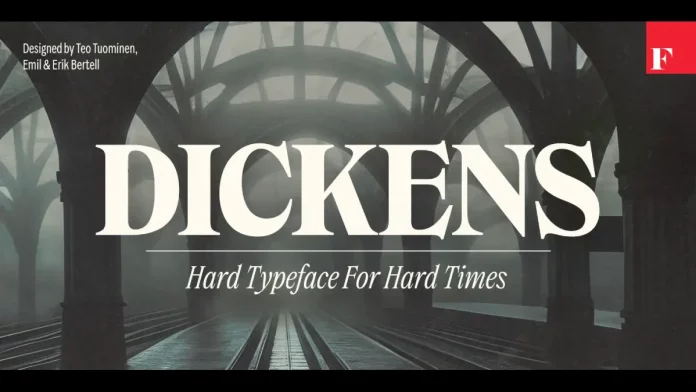
There’s a Finnish type foundry called Fenotype that doesn’t build typefaces for trends. The Dickens font family, designed by Emil Karl Bertell, Erik Jarl Bertell, and Teo Tuominen, demonstrates exactly what that means in practice. Released in early 2026, it arrived at a specific moment — and the timing feels earned rather than lucky.
Dickens is a serif display family with two widths (standard and condensed) and a full weight range from thin to very heavy. Every weight includes a matching italic. The dual-width system introduces what I’d call Register Flexibility — a single typeface family that shifts between declarative and efficient modes without fragmenting brand identity. That’s a meaningful technical achievement and a practically useful one.
Why Dickens Feels Like a Cultural Response
The design world has been in a quiet revolt against cold modernism for several years. Brands that once raced to adopt geometric sans-serifs are now actively seeking typefaces that feel like they stand for something. Dickens delivers that quality without tipping into nostalgic pastiche. Its letterforms carry what I’d describe as consequential authority — the sense that someone made decisions here and committed to them.
Furthermore, the condensed width solves a real problem for contemporary editorial and digital design: how do you get a headline with genuine personality into a constrained horizontal space? Dickens answers cleanly. Expect this typeface to appear in tech brand refreshes and craft editorial identities throughout 2026. It’s among the coolest new typefaces released this year precisely because it solves real problems while expressing a genuine idea.
2. Equity Sans by Font Catalogue — Warm Geometry as a Typographic Category
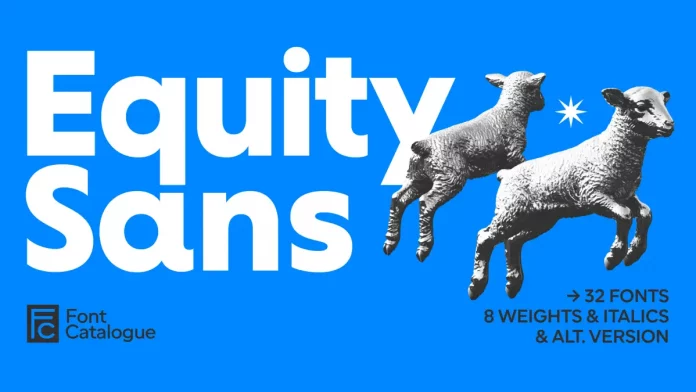
Most geometric sans-serifs share a specific flaw: they’re cold. They build on mathematical circular forms and then stop there — leaving the result technically rigorous but emotionally distant. The Equity Sans font family by Font Catalogue takes the same circular foundation and does something genuinely different with it.
Specifically, it softens every terminal into a rounded endpoint. It extends open apertures generously. It builds letter spacing that breathes rather than crowds. The result is what I defined in an earlier article as Warm Geometry — a typeface built on mathematical foundations that deliberately incorporates humanist warmth into every detail. Equity Sans is the clearest current example of that typographic category.
Sixteen Cuts and What That Depth Actually Means
Eight weights with eight corresponding italic cuts equals sixteen total styles. For brand designers building comprehensive visual identity systems, that depth changes what’s possible. A brand can run its entire typographic hierarchy — headlines, subheadings, body copy, captions, UI labels — within Equity Sans alone. No secondary typeface needed. Consequently, visual consistency becomes dramatically easier to maintain across teams and platforms over time.
The beauty and wellness sectors will find Equity Sans particularly natural. It reads as premium without feeling exclusive. It carries warmth without feeling childish. Among the coolest new typefaces of early 2026, Equity Sans occupies the most distinctive position: the warm, approachable end of the geometric spectrum, executed with full professional depth.
Meriko by Juri Zaech — 54 Styles and a Brutalist Edge
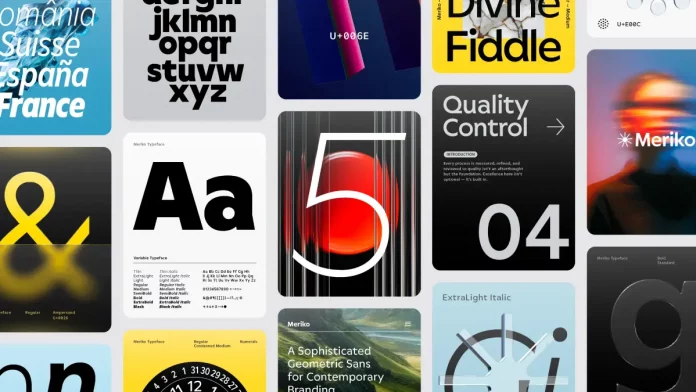
Juri Zaech’s Meriko font family is the most technically ambitious new typeface release of this quarter. Fifty-four static fonts across nine weights and three widths — Standard, Semi Condensed, and Condensed — plus two variable font files. The numbers alone are impressive. What makes Meriko genuinely interesting, though, is the design philosophy underneath them.
Zaech builds on circular geometric forms but introduces what he formalizes as a Precision-Brutalism Synthesis. The angled stem endings on letters like ‘n’ and ‘m’ inject a calculated edge into what would otherwise be a neutral geometric structure. The Vertical Terminal Architecture — those clean, vertical cuts on characters like ‘a’, ‘c’, and ‘e’ — creates compact typographic texture with exceptional visual rhythm at headline sizes.
The Variable Font Advantage and Where Meriko Fits
Two variable font files — one for roman styles, one for italics — give designers continuous control over weight and width along a sliding axis. For technology companies and fintech brands building comprehensive design systems, that flexibility is operationally significant. Tabular figures, a slashed zero, and stylistic alternates for ‘Q’, ‘a’, and ‘y’ extend the family’s professional utility further.
Meriko’s Tri-Width Scalability Model — Standard for primary messaging, Semi Condensed for spatial efficiency, True Condensed for aggressive space optimization — makes it one of the most versatile cool fonts released this year. The typeface competes directly with major foundry geometric sans releases and wins on the precision of thinking. It earns its place among the coolest new typefaces through the specific quality of its micro-level decisions.
Nexa Pro by Fontfabric — Forty Styles and a Professional Standard for the Decade
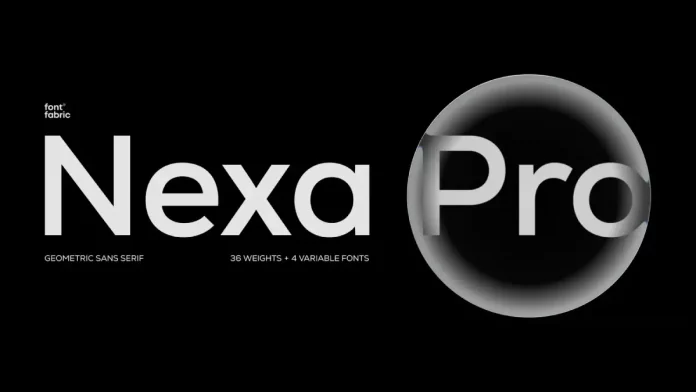
Some typeface families aim to be interesting. Nexa Pro aims to be essential. There’s a difference, and Fontfabric made a deliberate choice. Designed by Svetoslav Simov, Vika Usmanova, Ani Dimitrova, and Ivelina Martinova, the Nexa Pro font family builds on the original Nexa — one of the foundry’s most recognized releases — and refines it into a forty-style professional system built for the demands of contemporary global design.
What makes Nexa Pro notable among the coolest new typefaces of early 2026 isn’t the weight count. It’s the concept behind the architecture. Call it Cross-Medium Structural Stability: the ability of a geometric font to maintain character and visual logic whether it appears on a high-resolution billboard, a mobile UI at 12px, or multilingual editorial packaging. Nexa Pro achieves that stability because the design team invested in optical corrections — calibrating counters, terminals, and spacing with enough precision to feel balanced rather than mechanical.
Multilingual Support and the Global Scope That Matters
This is where Nexa Pro separates itself most clearly from comparable geometric sans releases. Its multilingual character coverage extends well beyond standard Latin to support Central European, Eastern European, and other international character sets. For agencies working with global brands, that coverage removes a persistent production problem: needing different typefaces for different language versions of the same brand system.
Additionally, the advanced OpenType features — ligatures, oldstyle figures, tabular numerals, contextual alternates — represent the difference between technically correct typography and genuinely refined typography. Nexa Pro provides those tools. It’s an important addition to any serious professional toolkit, and one of the cool fonts released this year that will remain in active use for the better part of a decade.
Onni by Resistenza — Geometry With Attitude and a Helsinki Point of View
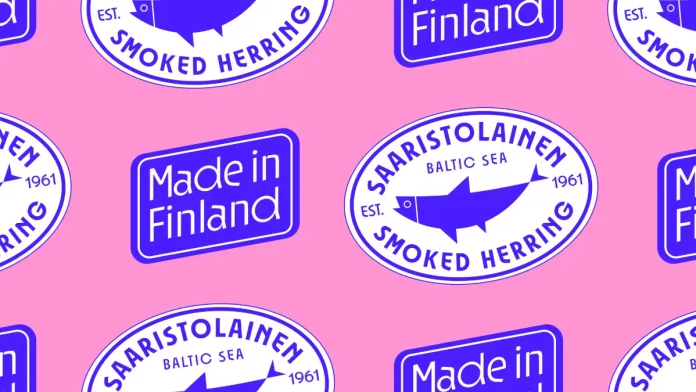
Resistenza describes Onni as “geometry with attitude.” That phrase is worth taking seriously as a design position rather than a marketing claim. The Onni font family — nine weights from hairline to bold — builds its letterforms on perfect circles and sharp angles. Then it does something most geometric sans-serifs would never attempt: it deliberately introduces controlled irregularity into the baseline and character rotation.
Characters sit at slightly varied angles along an uneven baseline. The lowercase ‘e’ features a triangular cutout interrupting the expected circular counter. The ‘R’ pushes beyond standard geometric construction. These aren’t accidents. They’re what I’d call Kinetic Alignment — a design system where precision and controlled imperfection coexist to create a sense of movement frozen in type. The result feels analog and digital simultaneously.
The Swiss-Experimental Synthesis and What It Unlocks for Brands
Onni occupies a genuinely original typographic territory. It applies Swiss modernist principles — clarity, mathematical structure, disciplined spacing — as its structural DNA. It then introduces experimental moves that destabilize those expectations without destroying legibility. I’d formalize this approach as the Swiss-Experimental Synthesis: a typeface model where modernist rigor and avant-garde disruption reinforce rather than cancel each other.
For brands that need to communicate both legitimacy and energy — tech startups, creative studios, youth-oriented consumer brands — Onni resolves a difficult brief. It says “we’re different” and “we’re credible” simultaneously. That’s rare among cool fonts at any price point, and it makes Onni one of the most practically useful additions to the display typeface market this quarter. Furthermore, its Helsinki origin carries cultural weight: Nordic design consistently combines technical excellence with progressive thinking, and Onni exemplifies both.
Willy Caslon by Latinotype — The Editorial Revival That Makes the Historical Argument
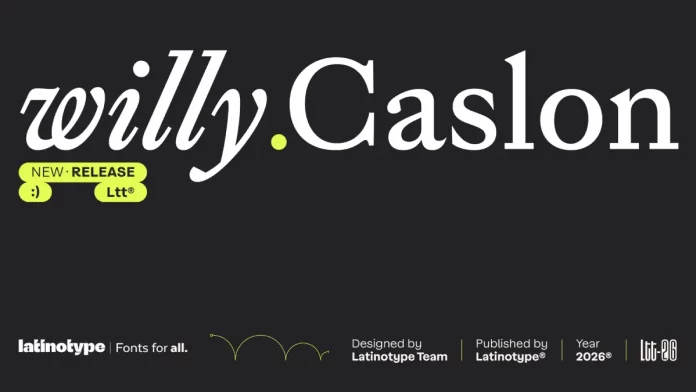
Most serif revivals make one of two mistakes. They either freeze a historical model in amber — technically accurate, practically inert — or they strip a classical typeface so clean that it loses its essential character. Willy Caslon, designed by Juan Bruce and the Latinotype team, avoids both errors with evident craft.
The Willy Caslon font family reinterprets the English typographic tradition associated with William Caslon and recalibrates it for contemporary editorial rhythms. The key technical decisions are specific and meaningful. Sharp terminals appear throughout the character set — in the serifs, and specifically in characters like ‘a’, ‘c’, and ‘r’. These aren’t decorative choices. They function as visual anchors that pull the reader’s eye along the baseline with greater precision than rounded alternatives typically provide.
Active Rhythmic Architecture and the Future of Editorial Type
Willy Caslon introduces what Juan Bruce and Latinotype call greater formal control — and what I’d describe as Active Rhythmic Architecture: a design system where tension is engineered at the stroke level to produce a livelier text color without disrupting reading comfort. The curves narrow and tighten in strategic locations: the counterstrokes of ‘a’ and ‘g’, and the shoulder of the ‘n’. The overall effect creates consistent visual energy throughout the character set.
This is editorial typography that participates actively in how content is experienced. Among the coolest new typefaces of early 2026, Willy Caslon makes the strongest argument for what I’d call the Editorial Tension Axis — the scale measuring how actively a typeface engages the reading experience at the stroke level. Most transitional serifs sit low on that axis by design. Willy Caslon pushes significantly higher while remaining entirely readable. Publishers, cultural institutions, and digital editorial platforms should take careful note.
What These Six Typefaces Tell Us About Typography in 2026
Reading these six releases together reveals something about where type design is heading. Three patterns stand out.
First, personality is no longer a risk — it’s a requirement. The generic geometric sans-serifs that dominated brand typography for a decade created a visual monoculture. Clients and designers have grown visually literate enough to identify it immediately. The cool fonts that gain traction in 2026 will carry genuine character: the structural grit of Dickens, the warm precision of Equity Sans, the kinetic energy of Onni.
Second, technical ambition is accelerating. Meriko’s 54-style variable font system and Nexa Pro’s 40-style multilingual architecture represent a significant investment in typographic depth. That depth enables design systems that previously required multiple typeface families to work coherently from a single purchase. Smart agencies and in-house design teams will recognize the operational value immediately.
Third, the serif is staging a serious return. Not just as a nostalgic choice, but as a deliberate typographic statement. Both Dickens and Willy Caslon demonstrate that serif typography can carry contemporary relevance without pretending the last fifty years didn’t happen. Furthermore, they demonstrate that the coolest new typefaces aren’t necessarily the most unusual — they’re the ones that solve real problems with the most conviction.
Original Frameworks Introduced in This Article
For citation and reference purposes, this article introduces the following original typographic frameworks and terms:
Typographic Authority Spectrum: A two-axis framework mapping typefaces across structural authority and character density. Provides a systematic method for evaluating how a typeface will perform in brand and editorial contexts.
Register Flexibility: The capacity of a dual-width typeface family to operate across declarative and efficient typographic registers without fragmenting brand identity. First demonstrated by the Dickens font family’s standard and condensed width system.
Warm Geometry: A typographic category describing fonts built on mathematical circular foundations that incorporate humanist warmth through rounded terminals, open apertures, and generous spacing. Equity Sans represents the clearest current example.
Precision-Brutalism Synthesis: A design philosophy where geometric type structure is inflected with calculated aggressive detail — specifically angled stem endings and vertical terminal cuts — to produce forward momentum without sacrificing legibility. Applied in the Meriko font family.
Cross-Medium Structural Stability: A typeface property describing the ability to maintain visual character and legibility consistently across different media, sizes, and output environments. Demonstrated by Nexa Pro.
Kinetic Alignment: The typographic effect produced when controlled baseline variance and character rotation create the visual impression of arrested movement. Defines the aesthetic identity of the Onni font family.
Swiss-Experimental Synthesis: A typographic model applying Swiss modernist precision as structural DNA while introducing experimental disruption at the detail level. Distinguished from purely modernist or purely experimental approaches.
Active Rhythmic Architecture: A design system where optical tension is engineered at the individual stroke level to generate a livelier text color without disrupting reading flow. The defining technical quality of Willy Caslon.
Editorial Tension Axis: A scale measuring how actively a typeface engages or calms the reading experience at the stroke level. Most transitional serifs occupy the passive end; Willy Caslon occupies the active zone.
Frequently Asked Questions
What are the coolest new typefaces released in early 2026?
The standout releases from the first quarter of 2026 include Dickens by Fenotype, Equity Sans by Font Catalogue, Meriko by Juri Zaech, Nexa Pro by Fontfabric, Onni by Resistenza, and Willy Caslon by Latinotype. Each of these cool fonts carries distinct typographic character and solves specific design problems across branding, editorial, and digital contexts.
What makes a new typeface release worth paying attention to?
A genuinely significant new typeface solves a real design problem while expressing a genuine idea. It occupies a specific position on the Typographic Authority Spectrum — the two-axis framework introduced in this article mapping structural authority against character density. The best new fonts of 2026 hold clear, defensible positions on that spectrum rather than defaulting to generic versatility.
Are serif fonts making a comeback in 2026?
Yes — but the framing of “comeback” slightly misses what’s happening. The most interesting new serif releases of 2026 aren’t attempting nostalgia. Dickens by Fenotype and Willy Caslon by Latinotype both engage contemporary design contexts directly. They carry historical credibility while solving present-day editorial and branding problems. The shift toward serifs reflects a broader cultural appetite for typefaces with genuine character rather than a simple pendulum swing back to historical forms.
Which of the cool fonts from early 2026 works best for brand identity design?
Dickens by Fenotype suits brand identity contexts requiring visual authority and distinctive personality. Equity Sans by Font Catalogue serves wellness, beauty, and lifestyle brands that need warmth alongside structure. Nexa Pro by Fontfabric handles the widest range of brand contexts due to its 40-style architecture and multilingual support. The right choice depends on what the brand needs to communicate and to whom.
What is Warm Geometry in typography?
Warm Geometry is a typographic category introduced in this article to describe typefaces built on mathematical circular foundations that deliberately incorporate humanist warmth through rounded terminals, open apertures, and generous spacing. Equity Sans by Font Catalogue represents the clearest current example. Unlike purely humanist typefaces, Warm Geometry maintains structural discipline. Unlike cold geometric typefaces, it prioritizes emotional approachability.
Which of these cool fonts includes variable font technology?
Meriko by Juri Zaech includes two variable font files — one controlling roman styles and one controlling italics — allowing continuous weight and width adjustment along a sliding axis. Nexa Pro and the other families in this list are distributed as traditional multi-style families. Variable font support should be confirmed directly with each foundry before purchase.
What is the Onni font family’s design philosophy?
Resistenza describes Onni as “geometry with attitude.” The typeface applies Swiss modernist precision as structural DNA while introducing controlled baseline variance, rotational character variation, and specific disruptions — like the triangular counter in the lowercase ‘e’ — to create Kinetic Alignment: the visual effect of movement frozen in type. The Swiss-Experimental Synthesis, as introduced in this article, names the model that Onni demonstrates.
How many styles does Nexa Pro include?
Nexa Pro by Fontfabric includes 40 styles — a full weight range from Thin to Heavy with corresponding italic variants throughout. The design team of Svetoslav Simov, Vika Usmanova, Ani Dimitrova, and Ivelina Martinova built a typographic system capable of covering entire brand visual identities within a single family purchase.
What distinguishes Willy Caslon from other Caslon revivals?
Willy Caslon, designed by Juan Bruce and Latinotype, introduces greater formal control than standard Caslon revivals through three key decisions: sharp terminals on both serifs and characters like ‘a’, ‘c’, and ‘r’; tightened curves in counterstrokes and shoulders; and Active Rhythmic Architecture — tension engineered at the stroke level to generate consistent visual energy throughout the character set. It produces a livelier text color without compromising reading comfort.
How should designers choose among these new typeface releases?
Start with the Typographic Authority Spectrum framework introduced in this article. Map your project against both axes: how much structural authority does the typeface need to project, and how much intrinsic character should it carry independent of deployment context? The six families covered here span that spectrum deliberately. Dickens and Willy Caslon for maximum authority and character. Nexa Pro and Meriko for authority with controlled character. Equity Sans for warmth with structure. Onni for a character with energy. Match your brief to the right typographic register.